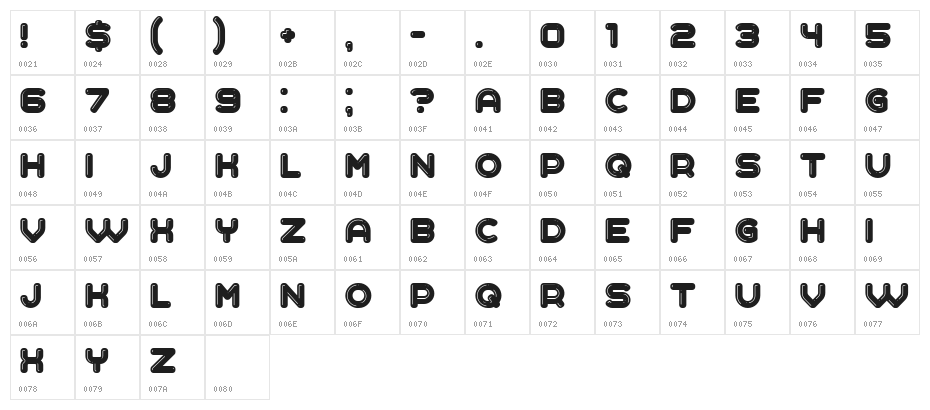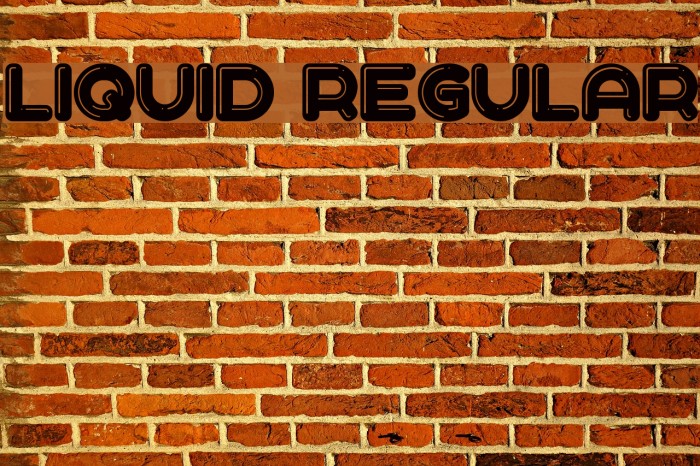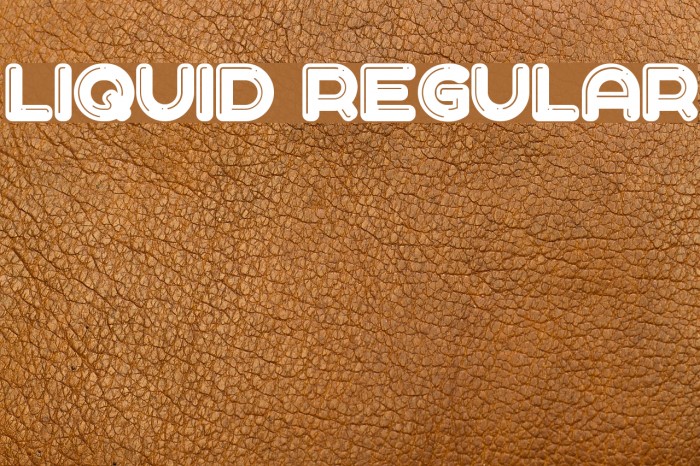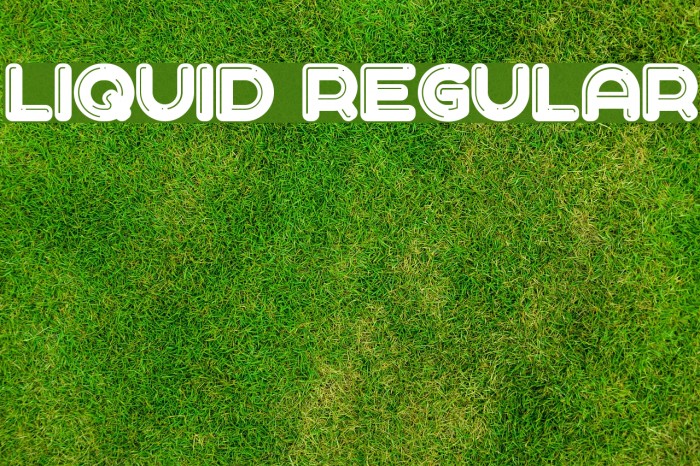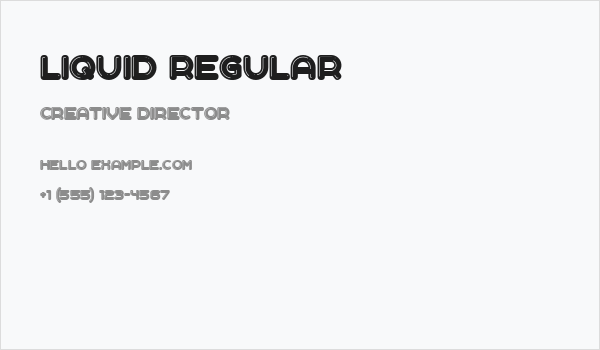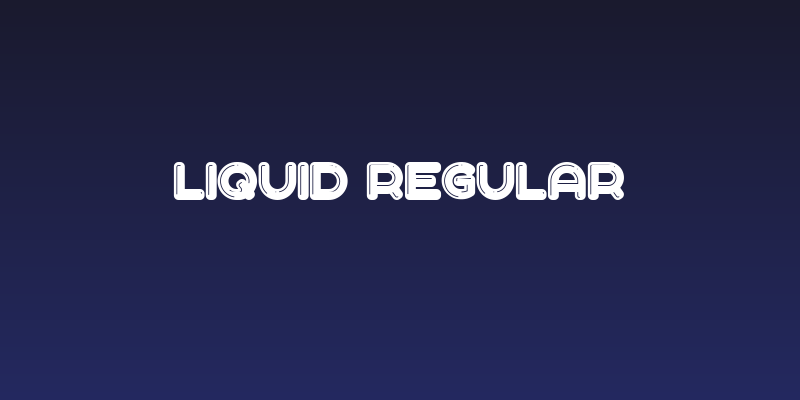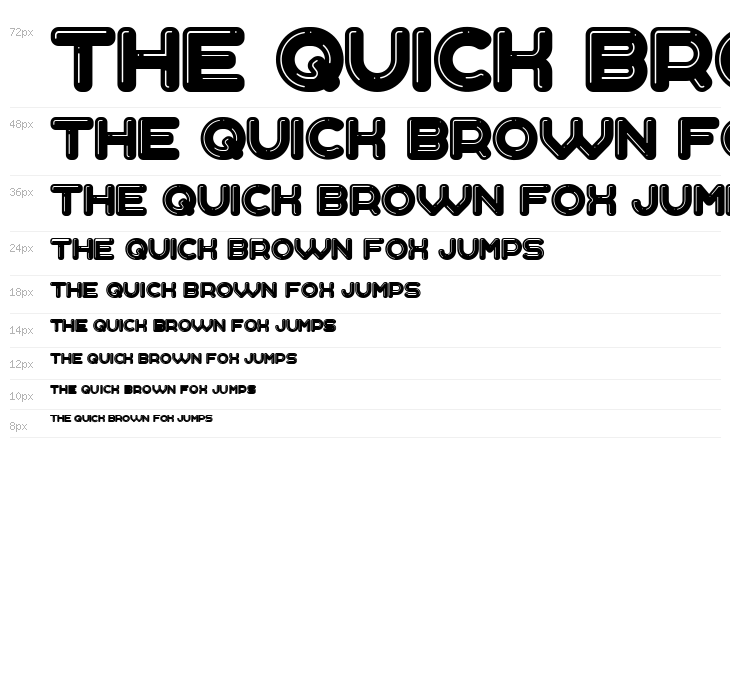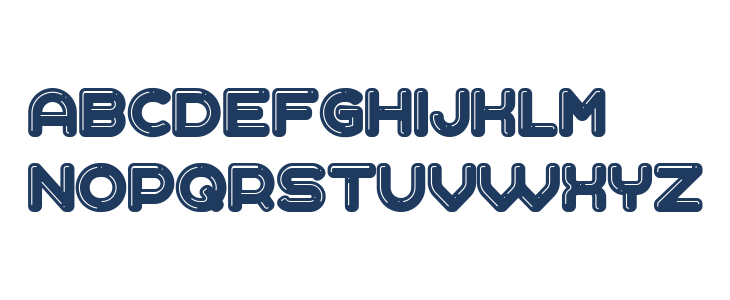
Liquid Regular Font
Liquid Regular Description
This font features a bold, modern design with a distinct outline that gives it a three-dimensional appearance. Each character is crafted with rounded edges and a consistent stroke width, creating a cohesive and visually appealing look. The uppercase and lowercase letters maintain a uniform style, while the numerals and special characters are designed to complement the overall aesthetic. The font's playful yet structured design makes it suitable for a variety of creative applications.
| Proposed Projects | Ideal for branding, posters, headlines, and digital artwork that require a modern and playful touch. |